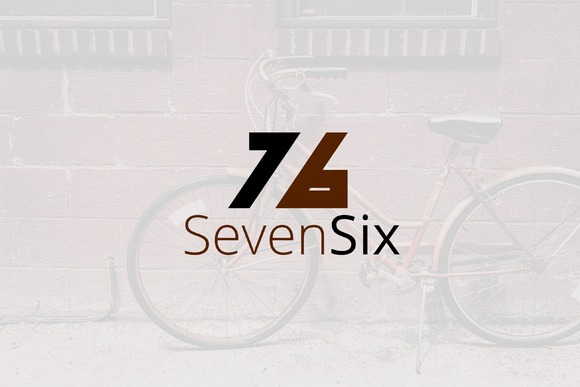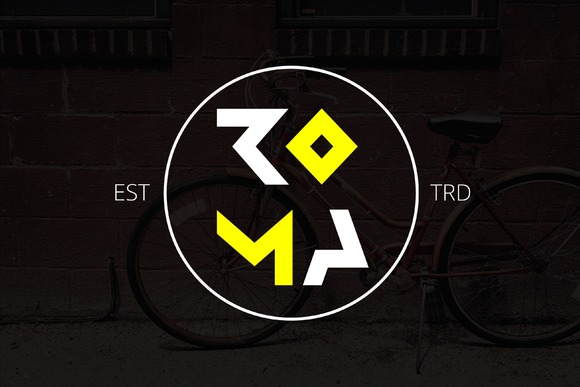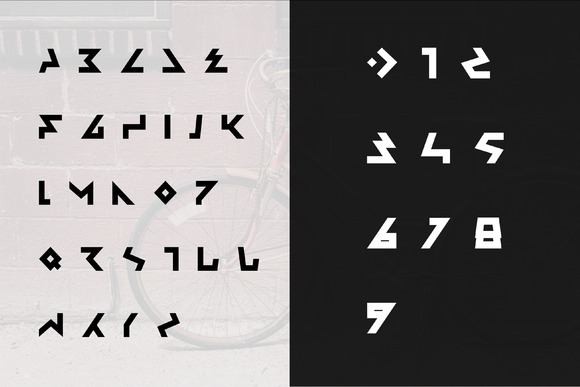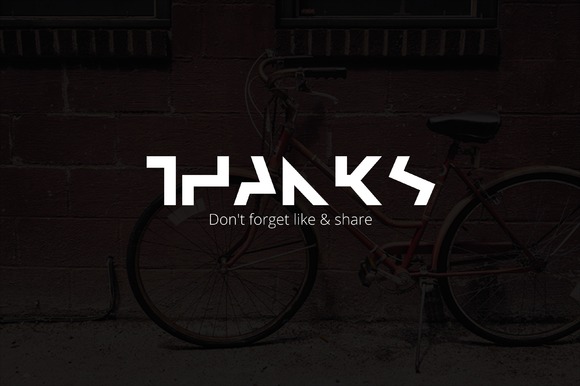
Introducing Ambisi Font: A Unique Design Marvel
In the vast and ever-evolving world of typography, a new font has emerged to capture the attention of designers and crafters alike. Meet Ambisi Font, a distinctive and stylish typeface that is making waves in the design community. With its unique design elements and versatile features, Ambisi Font is quickly becoming a go-to choice for those seeking to add a touch of elegance and sophistication to their projects.
The Story Behind Ambisi Font
Ambisi Font is the brainchild of a talented team of designers who aimed to create a typeface that would stand out from the crowd. With a focus on modernity and creativity, they poured their hearts and souls into crafting a font that would be both visually striking and highly functional. The result is a font that exudes confidence and poise, making it perfect for a wide range of applications, from branding and advertising to packaging and digital media.
What Sets Ambisi Font Apart?
So, what makes Ambisi Font so unique? Here are just a few features that set it apart from other fonts on the market:
- Distinctive Letterforms: Ambisi Font boasts a range of distinctive letterforms that are both elegant and bold. Each character has been carefully crafted to ensure that it is highly legible, while also conveying a sense of style and sophistication.
- Versatile Styles: Ambisi Font comes in a range of styles, from regular and bold to italic and condensed. This versatility makes it easy to use in a variety of contexts, from headlines and titles to body text and captions.
Ambisi Font: A Designer’s Dream
For designers, Ambisi Font is a dream come true. Its unique design elements and versatile features make it an ideal choice for a wide range of projects, including:
- Branding and Identity: Ambisi Font is perfect for creating stunning logos, business cards, and letterheads that exude professionalism and style.
- Advertising and Marketing: With its bold and eye-catching letterforms, Ambisi Font is ideal for creating attention-grabbing headlines and ad copy that gets noticed.
- Digital Media: Ambisi Font is optimized for use on digital platforms, making it perfect for websites, social media graphics, and mobile apps.
Tips for Using Ambisi Font
To get the most out of Ambisi Font, here are a few tips to keep in mind:
- Experiment with Different Styles: Don’t be afraid to try out different styles of Ambisi Font to find the one that works best for your project.
- Mix and Match: Combine Ambisi Font with other fonts to create a unique and visually striking typography scheme.
- Pay Attention to Kerning: Make sure to adjust the kerning of Ambisi Font to ensure that it looks its best in your design.
| Font Name | Ambisi Font |
| Author | Graphicfresh |
In conclusion, Ambisi Font is a game-changer for designers and crafters looking to add a touch of elegance and sophistication to their projects. With its unique design elements, versatile features, and wide range of applications, it’s no wonder that Ambisi Font is quickly becoming a favorite among typography enthusiasts. Whether you’re working on a branding project, advertising campaign, or digital media venture, Ambisi Font is definitely worth checking out.